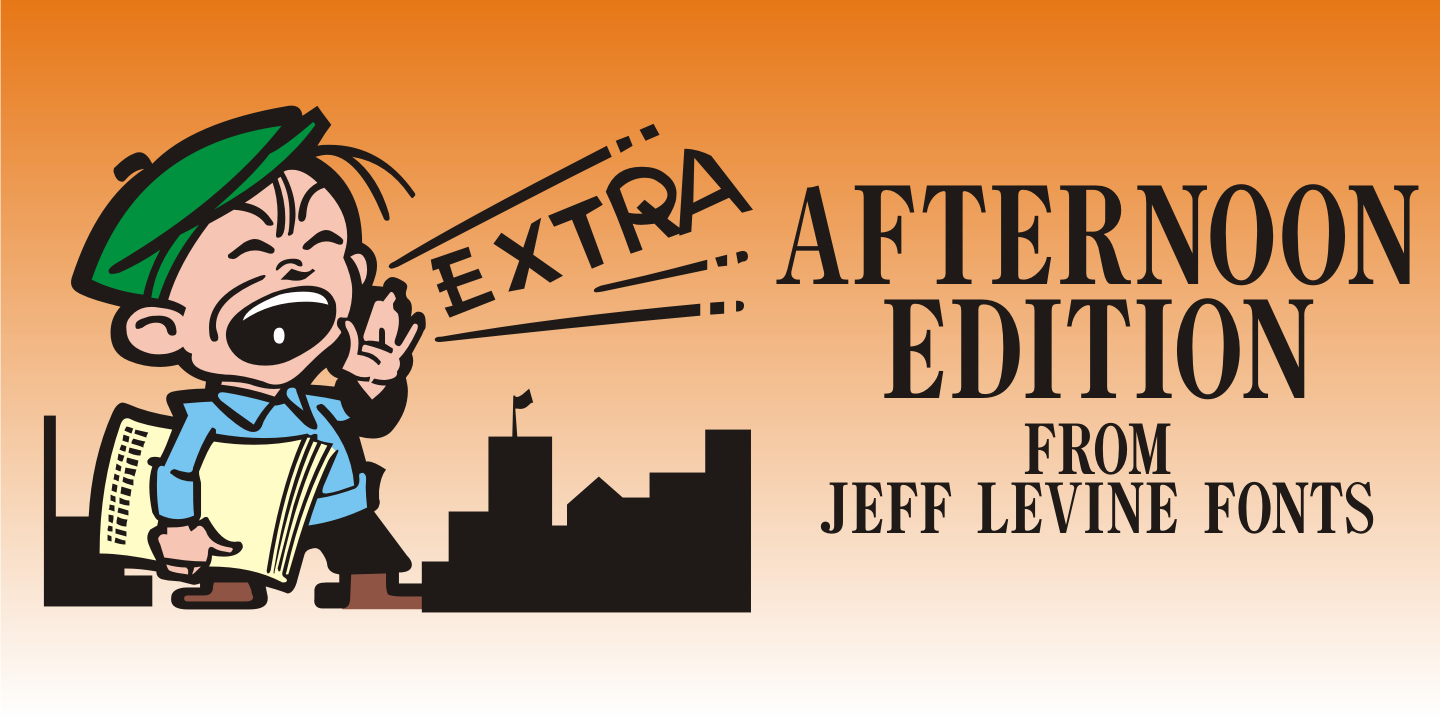
Discover the Afternoon Edition JNL Font Free Download, a classic serif typeface designed by Jeff Levine and published by Jeff Levine Fonts. This font is available for free download for testing purposes, but you must purchase it for commercial use. Inspired by vintage newspaper headlines with Caslon influence, it captures the bold, authoritative style of 1930s–1950s print media.
The Afternoon Edition JNL Font is perfect for newspaper-style layouts, editorial designs, posters, book covers, and retro branding, where its high-contrast, serif design commands attention. Its traditional aesthetic ensures readability and impact in both digital and print formats.
What makes the Afternoon Edition JNL Font Free Download exciting is its nostalgic connection to mid-century journalism, offering a timeless, authoritative look that evokes the golden age of print. Its elegant, bold letterforms add sophistication to any project.
The Afternoon Edition JNL Font family includes a single style, but it joins related fonts like Final Edition JNL, Evening Paper JNL, and Morning Paper JNL, creating a cohesive collection for vintage-inspired typography.